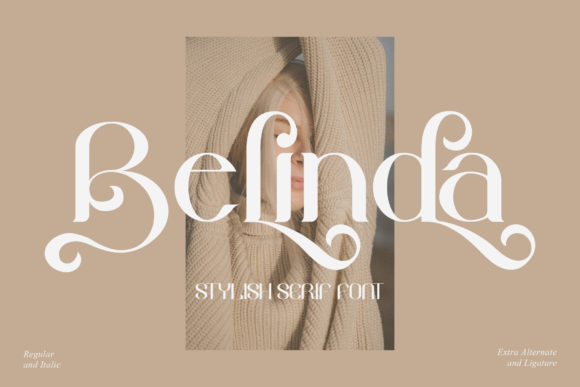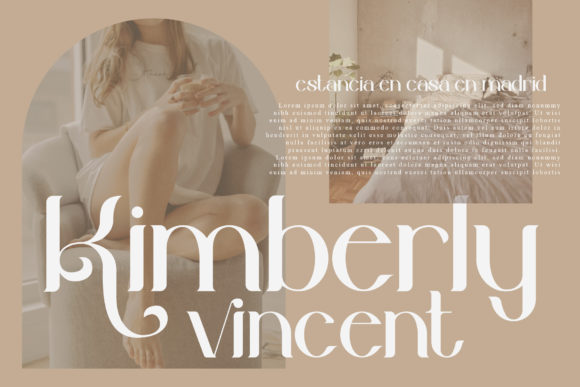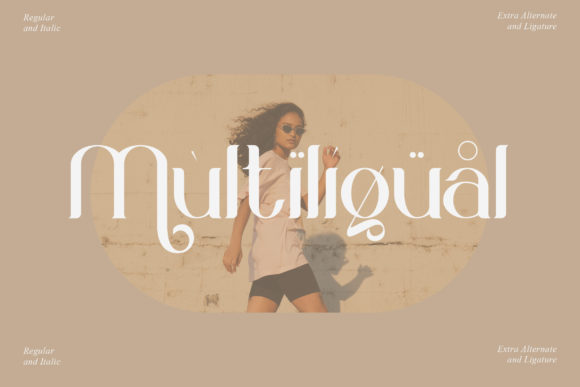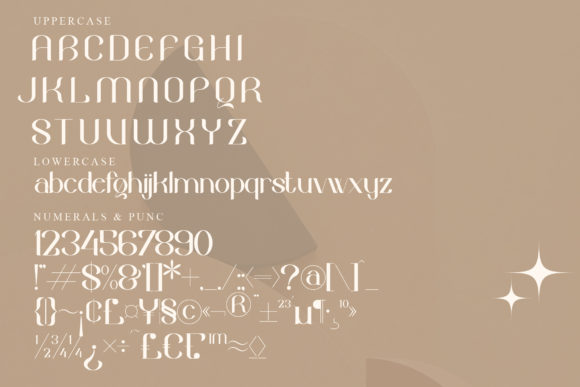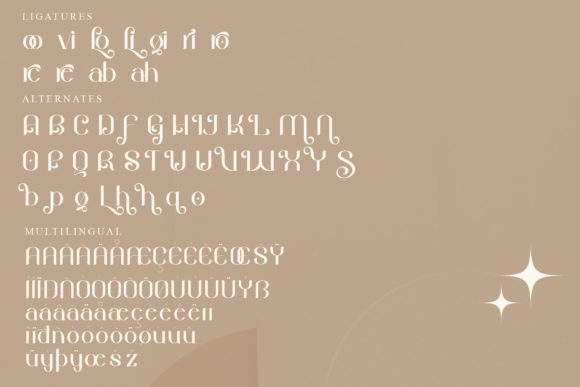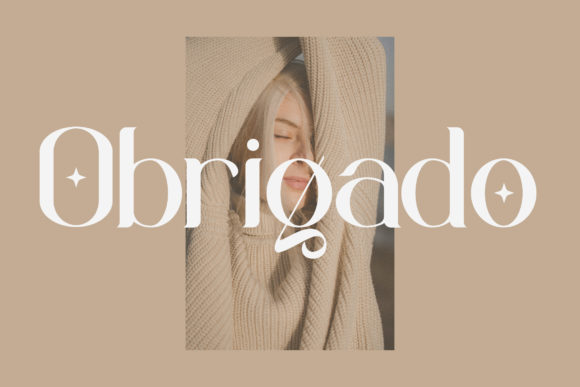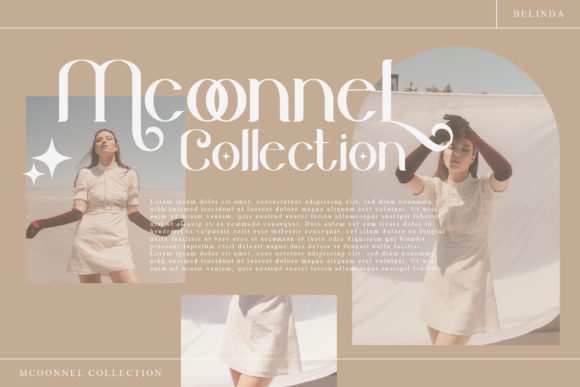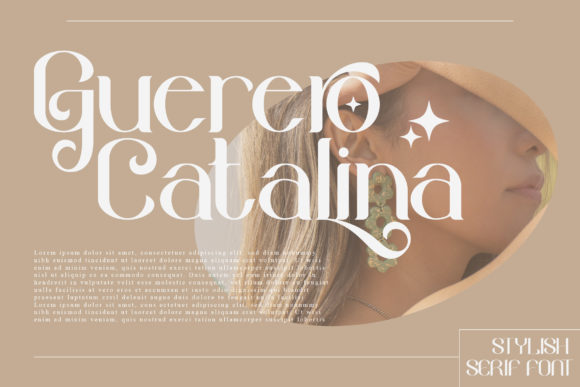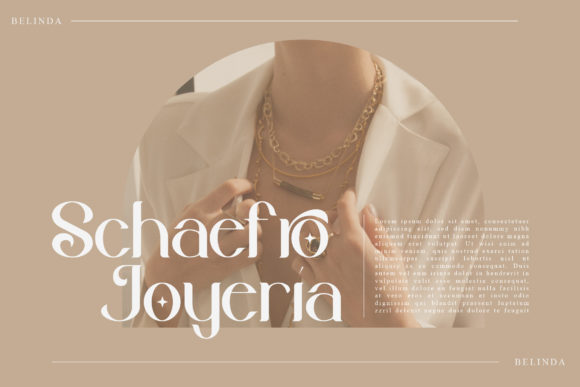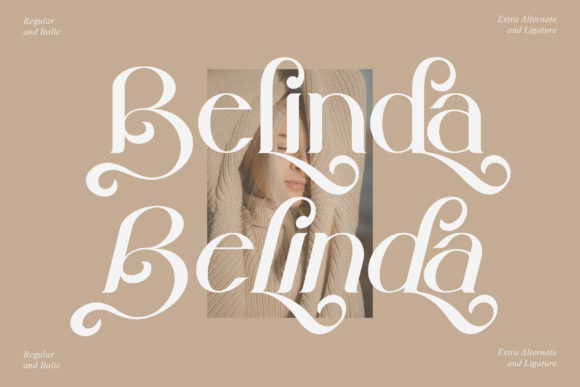
Belinda Font
Introducing Belinda, a modern and classic slab serif font that embodies a unique style and contemporary elegance. With its sleek and sophisticated look, Belinda is the perfect choice for a wide range of design projects. From elegant and luxury logos to book or movie title designs, fashion brands, magazines, clothes, lettering, quotes, and more, Belinda adds a touch of refinement and versatility to your creative endeavors.
Belinda’s modern and classic design sets it apart as a font that exudes a timeless appeal. Its clean lines and balanced letterforms strike the perfect balance between modernity and classic elegance. Whether used in logos, headlines, or body text, Belinda brings a touch of sophistication and professionalism to your designs.
An elegant and luxury logo becomes truly captivating with the inclusion of Belinda. Its sleek and stylish look enhances the visual impact of your brand’s identity, evoking a sense of exclusivity and refinement. Belinda’s versatility allows it to adapt to different industries, from high-end fashion brands to luxury hospitality and beyond.
Book or movie title designs take on a sophisticated flair with the help of Belinda. Its modern style adds a touch of intrigue and visual interest, making your titles stand out. Whether it’s a contemporary novel, a classic film, or any other creative project, Belinda elevates the overall aesthetic and creates a lasting impression.
Fashion brands benefit from Belinda’s sleek and elegant appeal. Its clean lines and balanced proportions enhance the visual identity of clothing labels, fashion magazines, and related materials. Belinda adds a touch of refinement and sophistication that resonates with style-conscious audiences.
Incorporating Belinda into lettering and quotes adds a distinctive and elegant touch. Its modern look enhances the impact of your messages, making them visually captivating and memorable. Belinda’s versatility allows you to create stunning typographic compositions that leave a lasting impression.
The PUA encoding of Belinda ensures easy access to all the glyphs and swashes, allowing you to unleash your creativity and customize your designs effortlessly.
In summary, Belinda is a modern and classic slab serif font that adds a touch of elegance and versatility to your designs. Its suitability for elegant and luxury logos, book or movie title designs, fashion brands, magazines, lettering, quotes, and more makes it a valuable asset in your design toolkit. Embrace Belinda and let it bring a touch of refinement and sophistication to your creative projects.